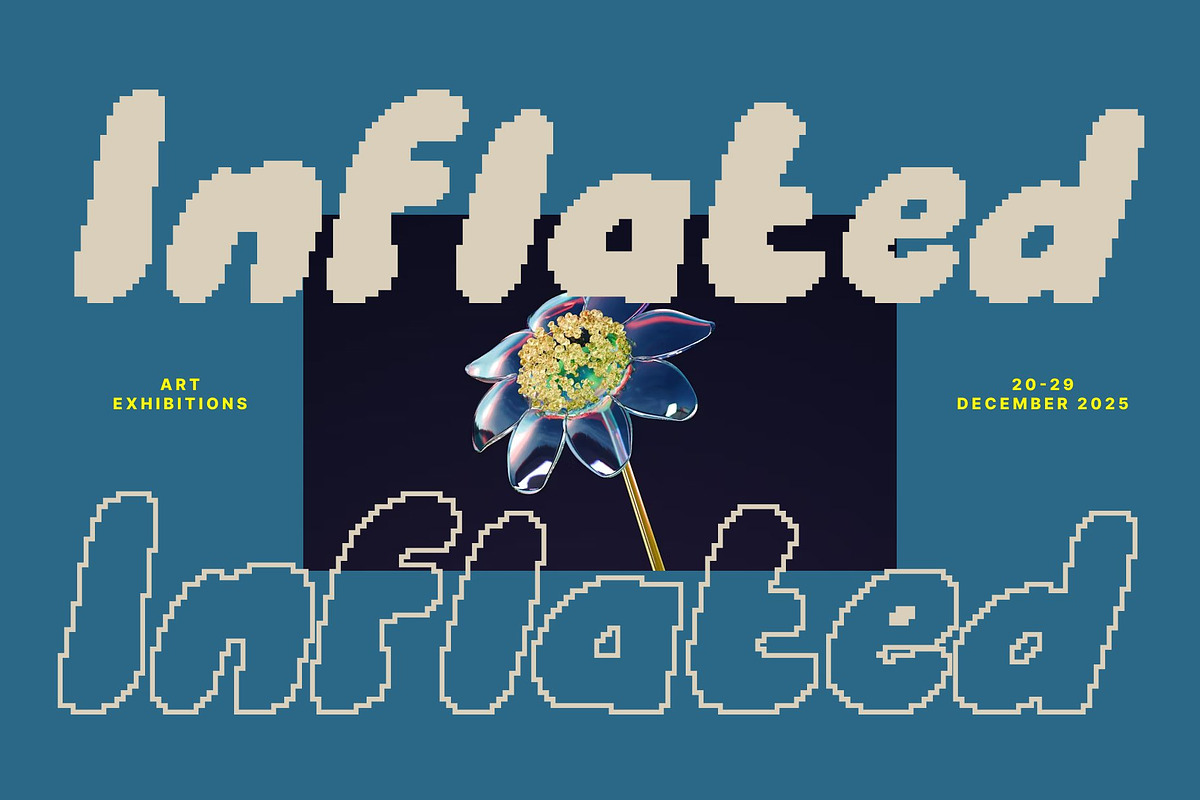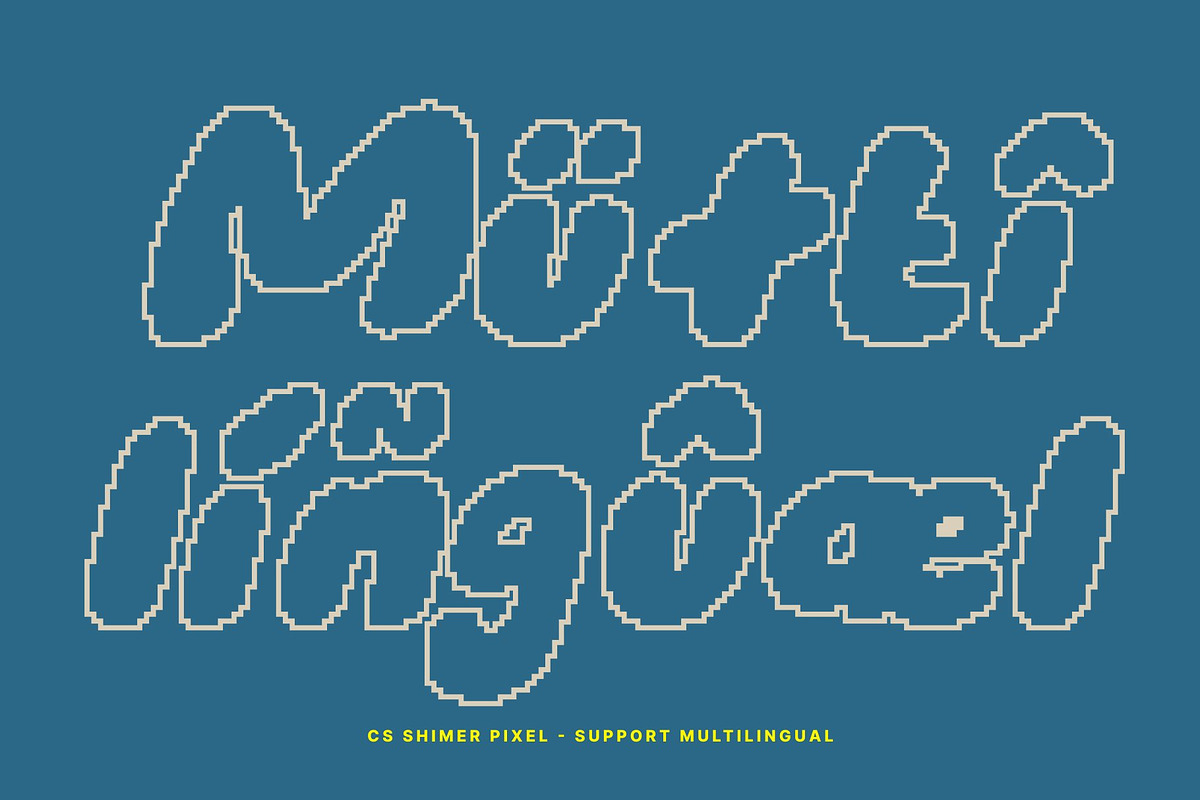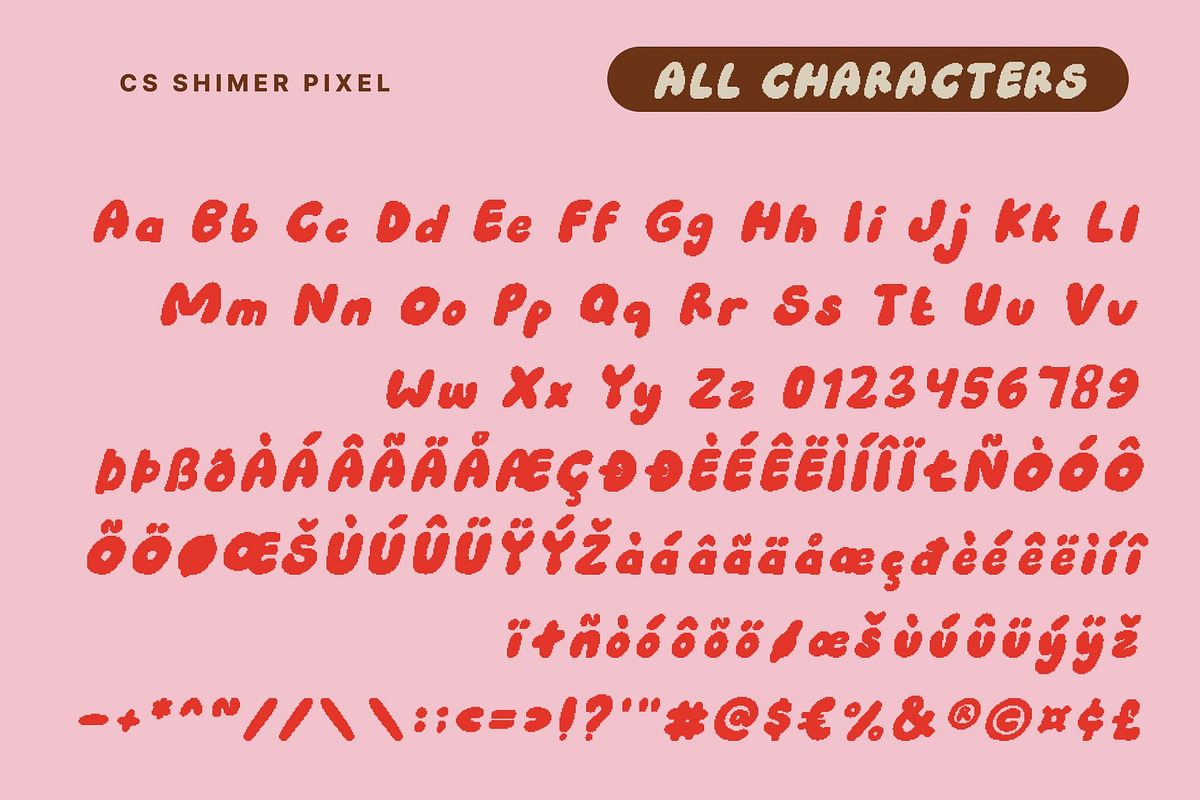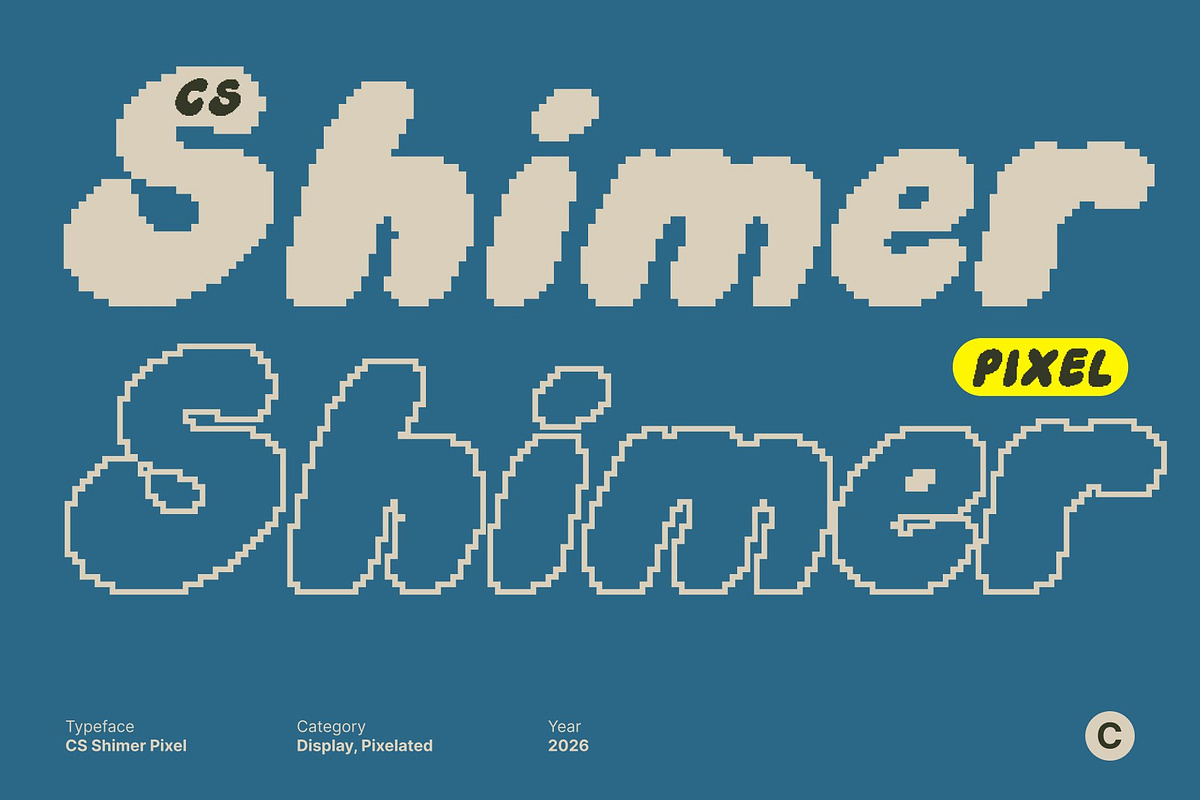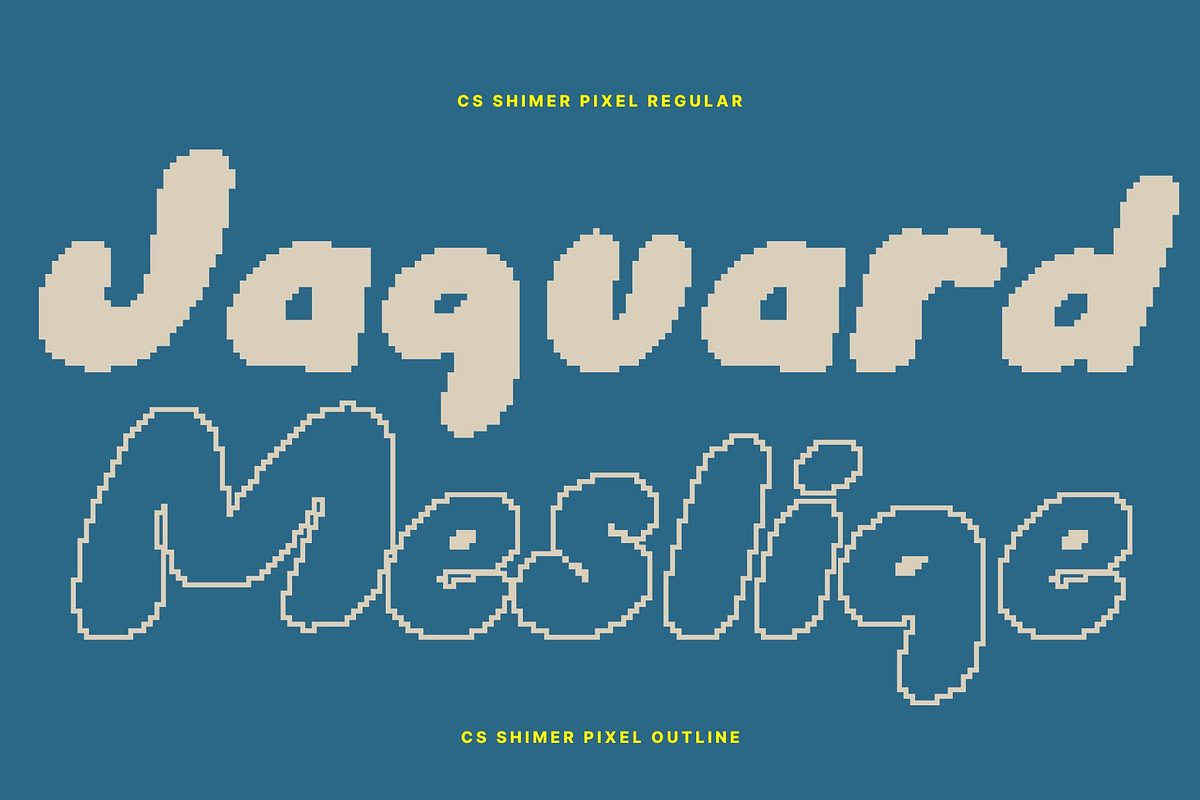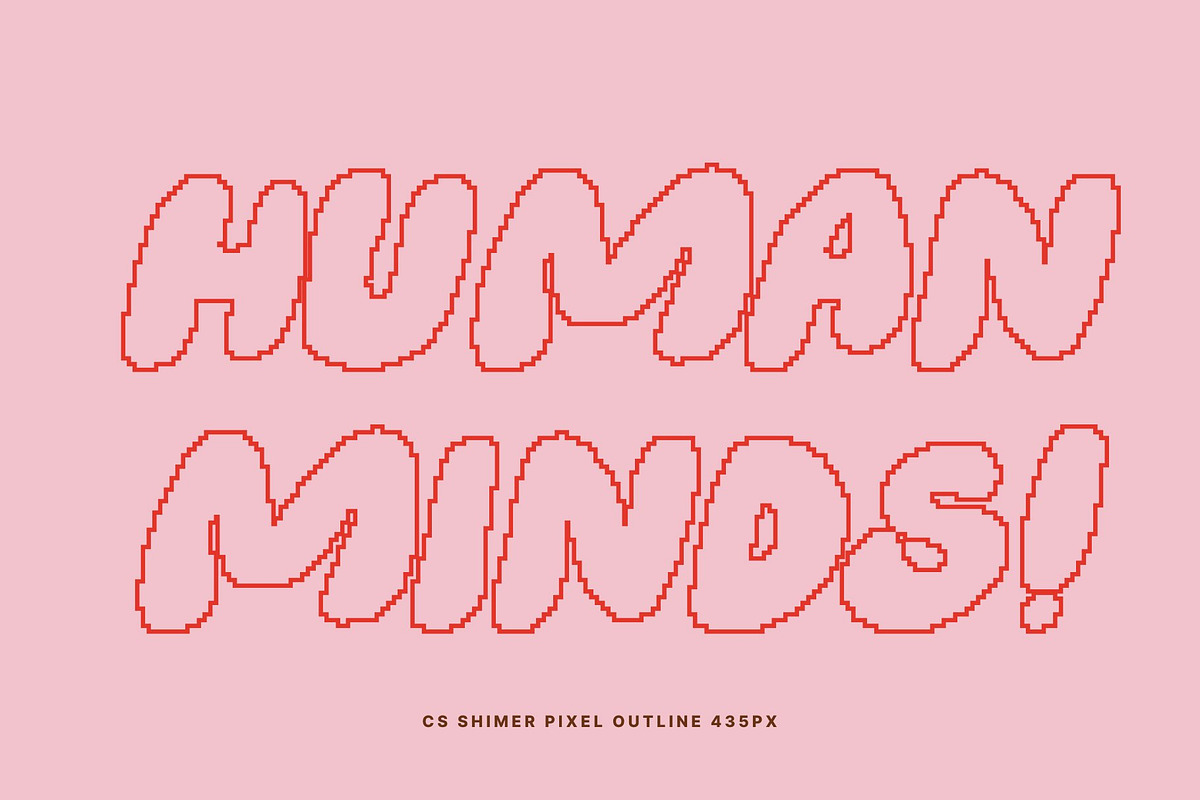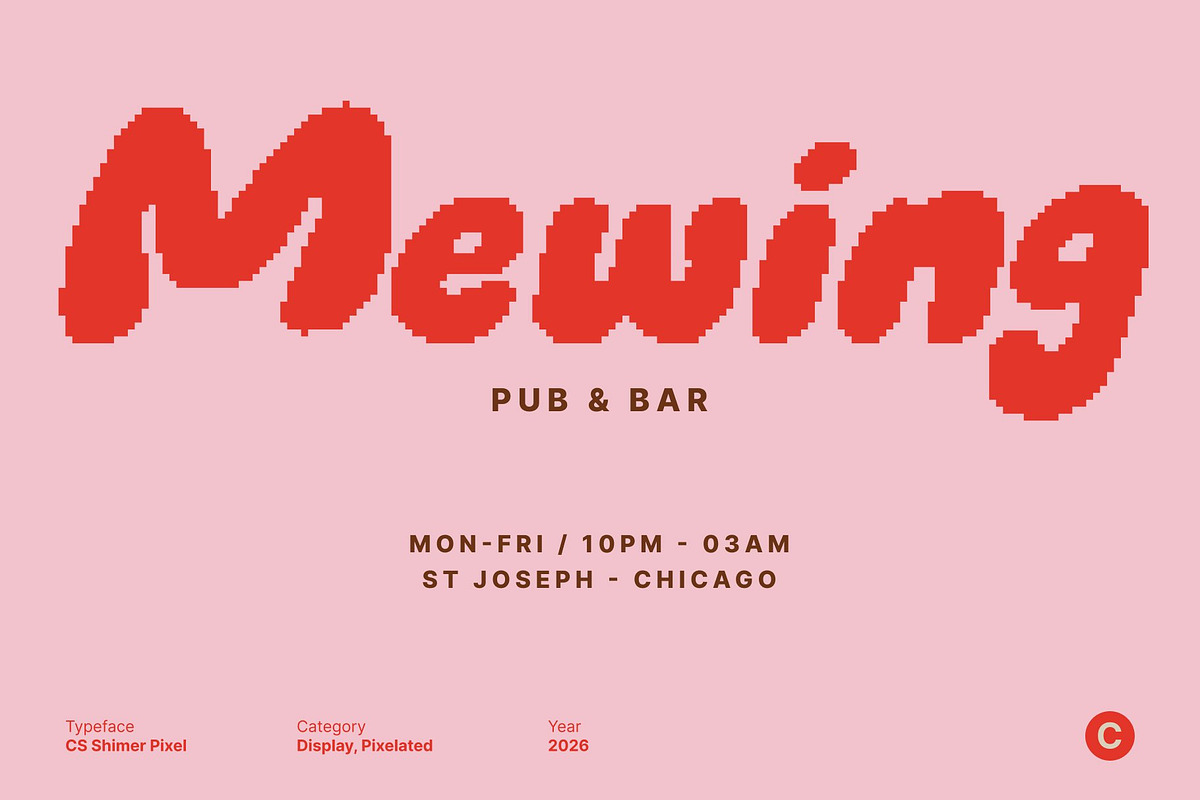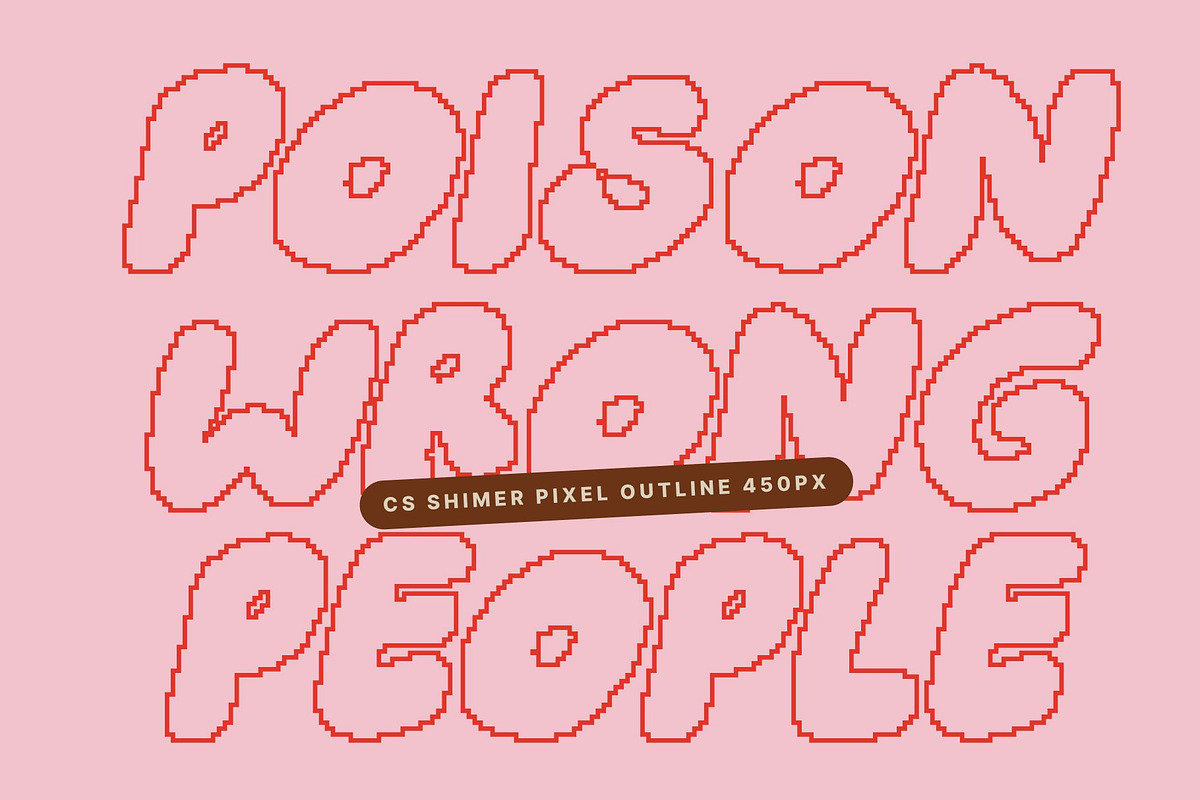
CS Shimer Pixel
CS Shimer Pixel – Bold Bubble Children’s Font with Playful Energy
Bold Bubble Shapes with Pixel Charm This is a bold children’s display font designed to burst with joy, charm, and lively expression. Built with rounded, bubble-like letterforms and enhanced with subtle pixel detailing, it creates a playful visual identity that feels both soft and energetic. Each character appears bouncy and friendly, instantly capturing attention with its cheerful personality.
Funky, Cute, and Full of Movement The exaggerated curves and adorable proportions give this font a spirited and imaginative vibe. Its dynamic shapes create a sense of motion and excitement, making every word feel animated and alive. The pixel-inspired edges add a modern twist, blending retro-digital flair with childlike fun.
Designed for Kids and Joyful Themes Perfectly suited for children’s projects, this font shines in storybooks, educational materials, toy packaging, kids’ apparel graphics, and playful branding. Its approachable and safe aesthetic makes it ideal for visuals aimed at toddlers, young readers, and family-oriented audiences.
Vibrant for Books, Posters, and Creative Campaigns Whether used in bold headlines, event posters, or interactive digital media, this font brings a vibrant and memorable presence. Its chunky bubble shapes ensure strong readability while maintaining a lively, whimsical character that fills every design with happiness and creative energy.
- CS Shimer Pixel Regular
- CS Shimer Pixel Outline